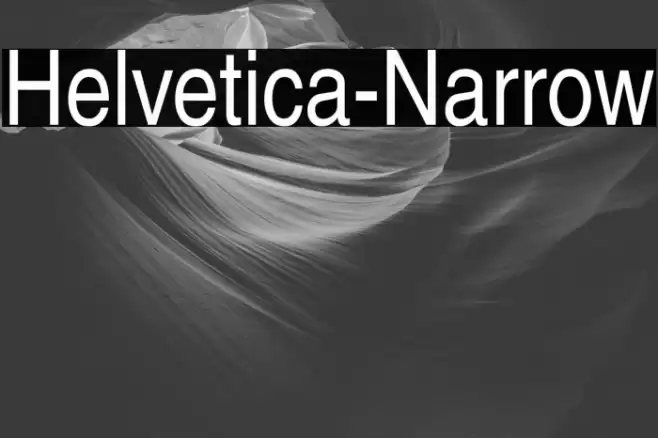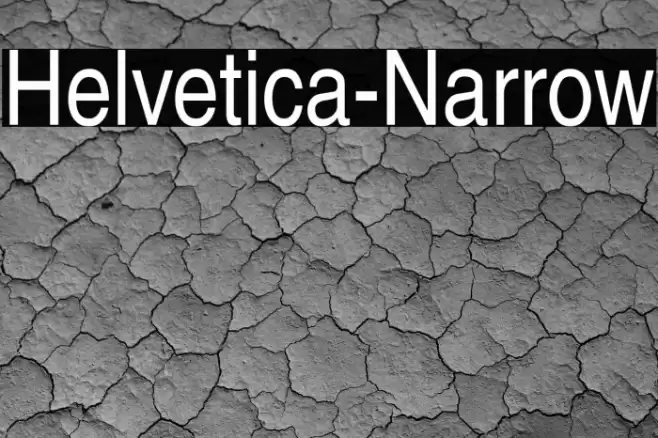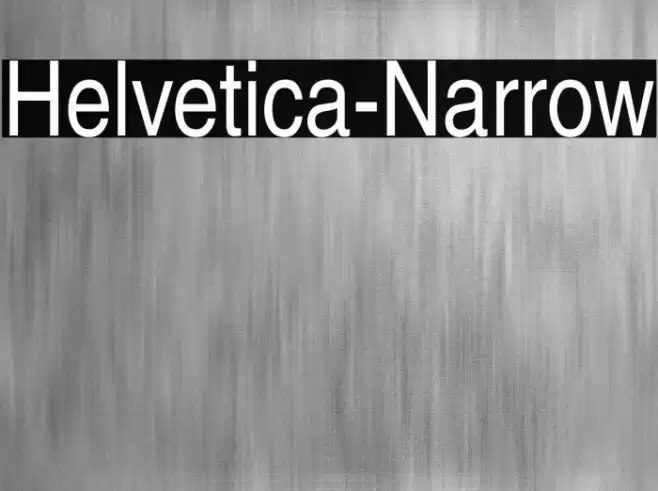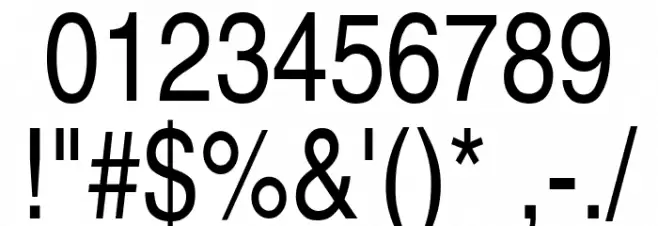
Helvetica-Narrow Font
Helvetica-Narrow Description
This font is a classic example of a sans-serif typeface with a clean and modern aesthetic. It features narrow letterforms that contribute to a condensed appearance, making it ideal for space-saving designs. The strokes are uniform in thickness, providing a low contrast that enhances readability. The characters are well-balanced and evenly spaced, ensuring clarity and legibility across various sizes. This font is versatile, suitable for both digital and print media, and its timeless design makes it a popular choice for professional and corporate settings.
A clean, modern sans-serif font with narrow, evenly spaced letterforms from Uncategorized fonts.
- Proposed Projects: Ideal for corporate branding, editorial layouts, signage, and digital interfaces.